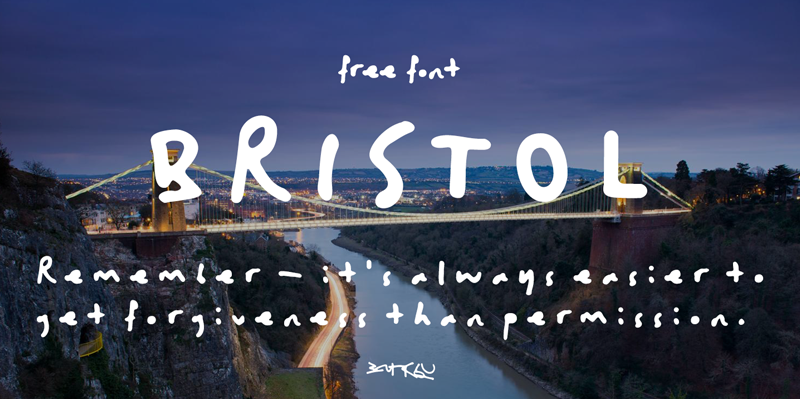
The "Bristol" font based on Banksy felt pen handwriting in letter to Bridge Farm School (2016, Bristol). In this font integrated Opentype features: case sensitive forms and ligatures for BANKSY signature. Created by Jovanny Lemonad. --- ABOUT CHARITY PROGRAM This collection of libre fonts is created by designers who have drawn these fonts and then allowed everyone to use, share, change and improve the fonts, free of charge. If you like the fonts that designers create within this project, then you can take part even if you are not a designer — with your money, in the spirit of charity «ON your heart». All the money is will transferred to the treatment of children with cancer. To do this send a payment to the Yandex Money: 41001412092310 Paypal account: lemonad@jovanny.ru |